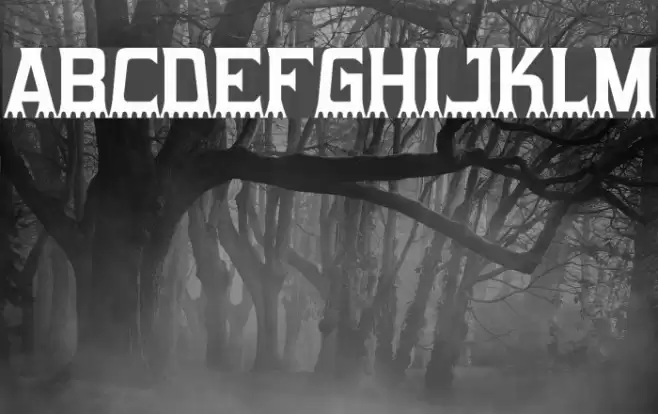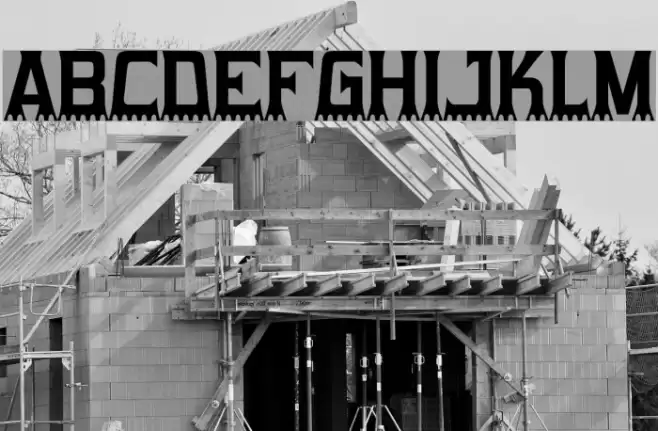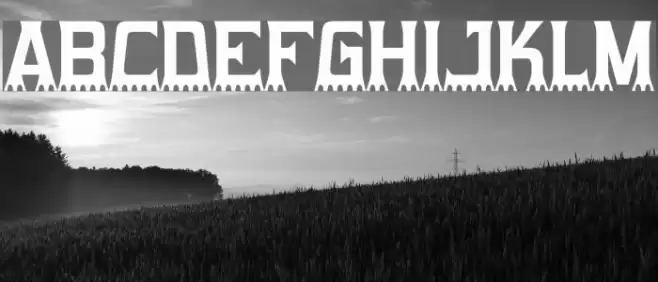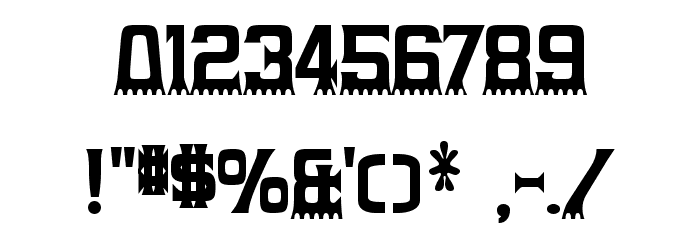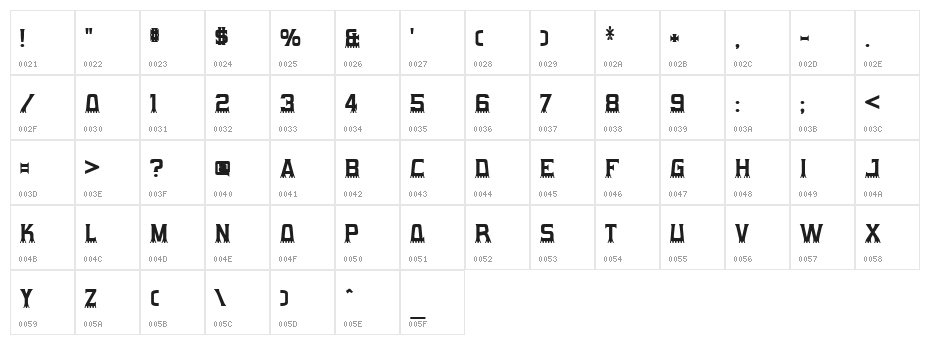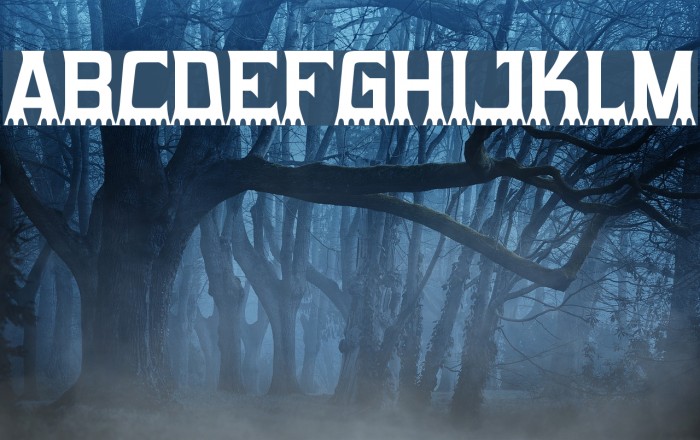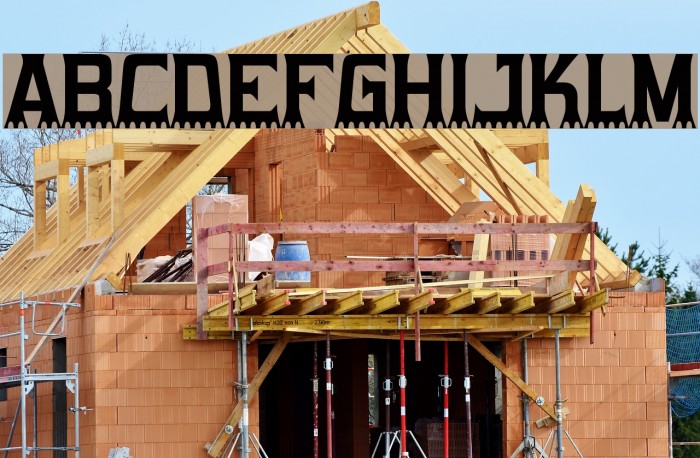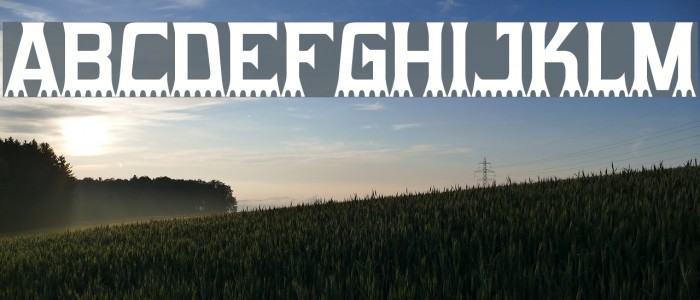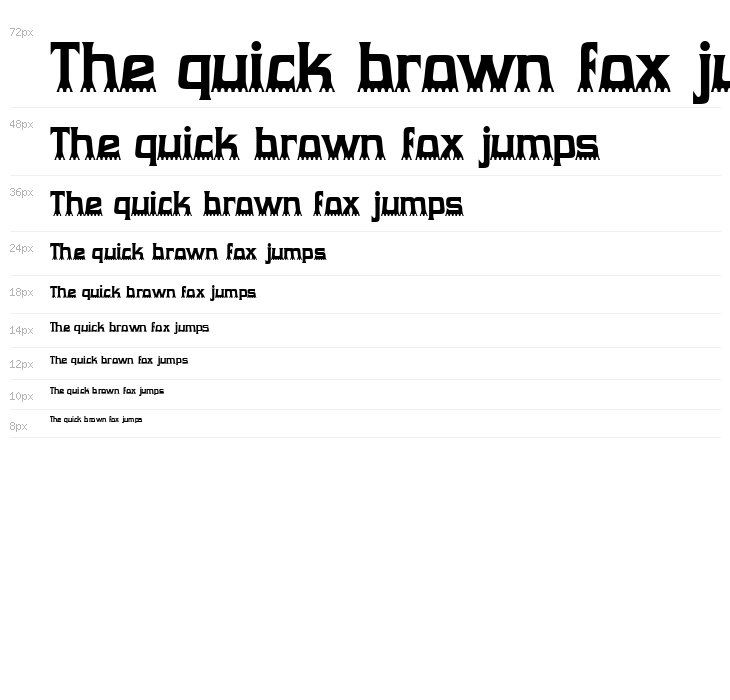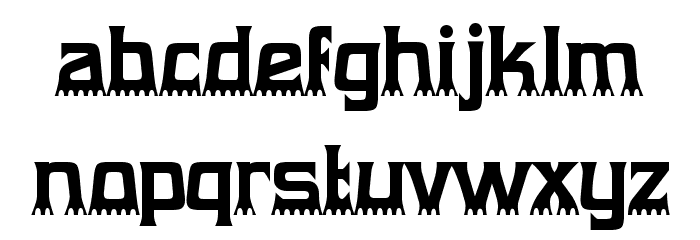
Gumtuckey Font
Gumtuckey Description
This font features a bold and distinctive design with a playful, jagged baseline that gives it a unique and eye-catching appearance. The uppercase and lowercase letters maintain a consistent style, with sharp edges and a slightly condensed form. The numerals and special characters follow the same design principles, ensuring uniformity across all glyphs. The font's quirky and decorative nature makes it ideal for projects that require a touch of whimsy and creativity. Its bold presence ensures it stands out, making it suitable for attention-grabbing headlines or branding materials.
A bold, decorative font with a playful, jagged baseline and sharp edges from Decorative fonts.
- Proposed Projects: Ideal for creative branding, posters, children's book covers, and playful event invitations.